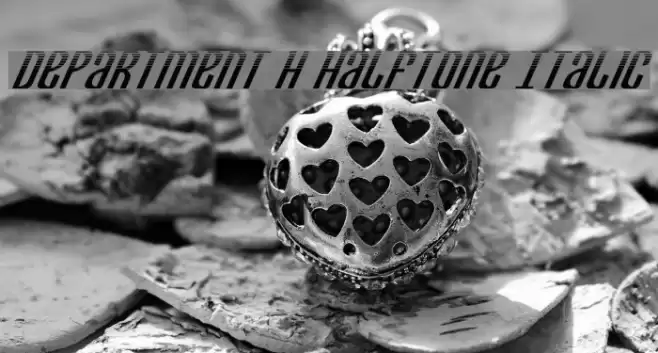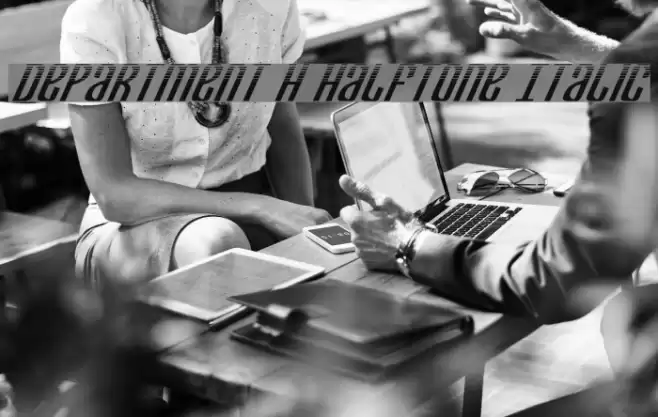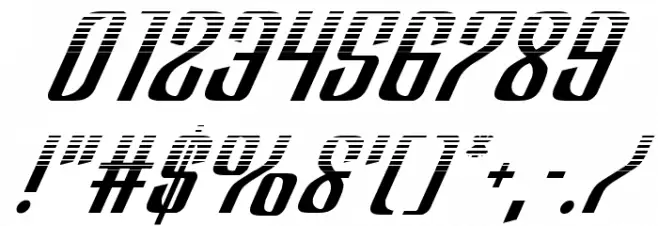
Department H Halftone Italic Font
Department H Halftone Italic Description
This font features a dynamic and bold italic style with a halftone effect that gives it a unique, modern appearance. The characters are slanted, adding a sense of motion and urgency, while the halftone pattern creates a textured look that is both eye-catching and distinctive. The uppercase and lowercase letters maintain a consistent style, with sharp angles and clean lines. The numerals and special characters are designed to match the overall aesthetic, ensuring a cohesive look across all text. This font is ideal for projects that require a contemporary and edgy feel.
A bold, italic font with a halftone effect, offering a modern and dynamic style from Uncategorized fonts.
- Proposed Projects: Ideal for branding, posters, and digital media that require a modern and edgy look.